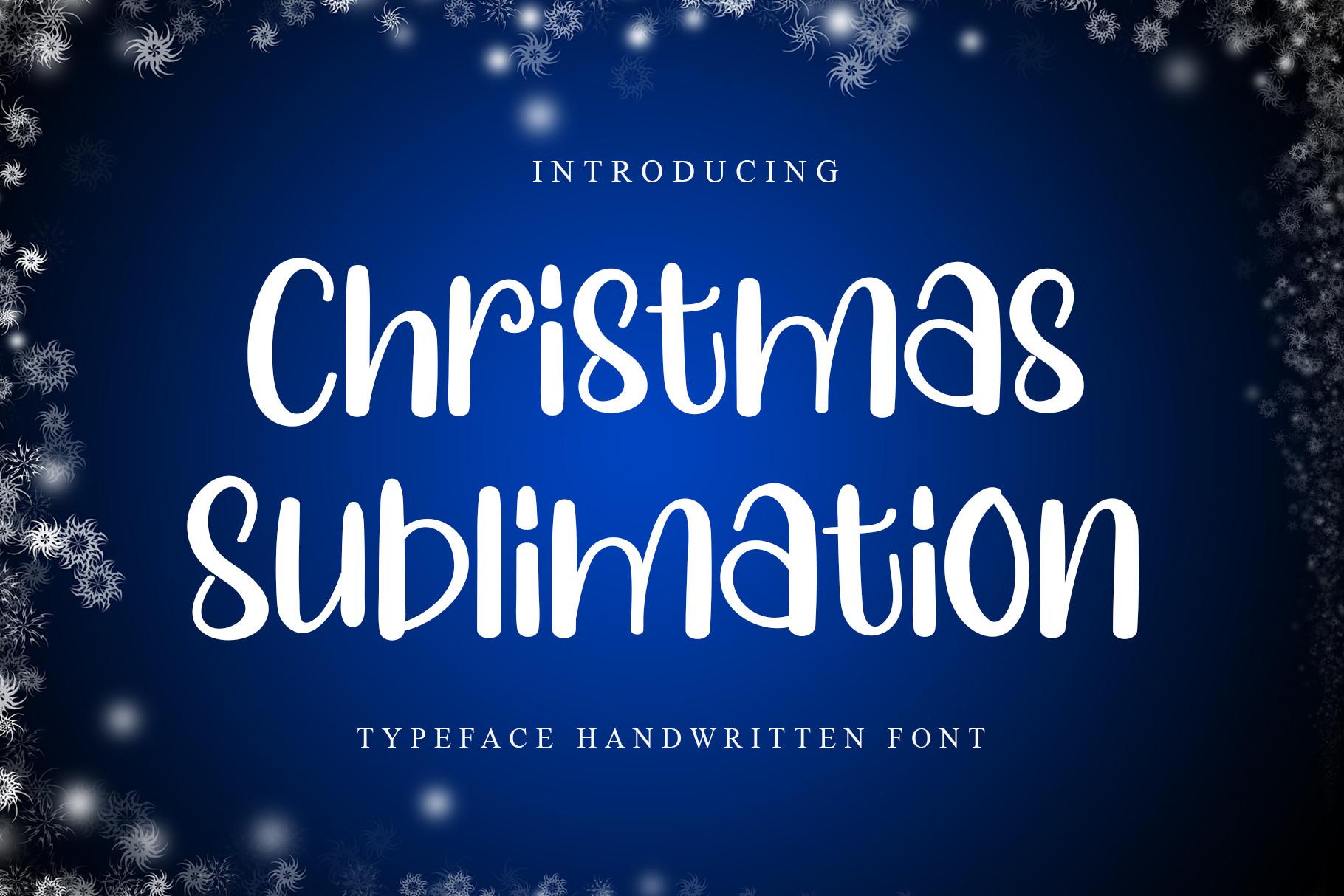
Christmas Sublimation Font Description
Christmas Sublimation is a unique and elegant handwritten font. Looks great on wedding invitations, greeting cards, billboards, logos, business cards, and any other design that requires a handwritten touch. This font features a varied baseline, created with a natural, hand-made touch so that it creates spectacular creations and will make your ideas look more real.